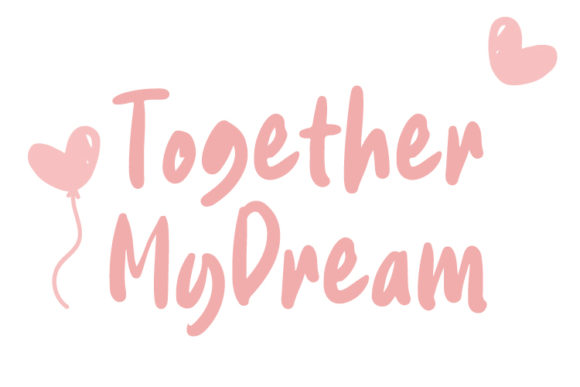
Introducing Daily Noted Font: The Ultimate Display Font for Creative Projects
Are you looking for a font that can elevate your creative projects to the next level? Look no further than Daily Noted Font, a fresh and relaxed display font that’s perfect for a wide range of applications. In this article, we’ll take a closer look at Daily Noted Font, its features, and how you can use it to enhance your designs.
What is Daily Noted Font?
Daily Noted Font is a modern display font that’s designed to add a touch of elegance and sophistication to your designs. It’s a versatile font that can be used for a variety of projects, including poster designs, book covers, merchandise, fashion campaigns, newsletters, advertising, magazines, greeting cards, album covers, and more.
One of the standout features of Daily Noted Font is its relaxed and fresh feel. It’s perfect for designers who want to create a laid-back, yet stylish look that’s sure to grab attention. Whether you’re designing for print or digital, Daily Noted Font is a great choice.
Key Features of Daily Noted Font
- Fresh and Relaxed Design: Daily Noted Font has a unique and modern design that’s perfect for creative projects.
- Versatile: This font can be used for a wide range of applications, from poster designs to digital marketing materials.
- Elegant and Sophisticated: Daily Noted Font adds a touch of elegance and sophistication to your designs.
- Easy to Read: This font is clear and easy to read, making it perfect for body text and headlines.
Uses of Daily Noted Font
Daily Noted Font is a versatile font that can be used for a wide range of projects. Here are some ideas to get you started:
- Poster Designs: Use Daily Noted Font to create eye-catching posters for events, promotions, or advertising campaigns.
- Book Covers: Add a touch of elegance to your book covers with Daily Noted Font.
- Merchandise: Use this font to create stylish and modern merchandise, such as t-shirts, mugs, and tote bags.
- Fashion Campaigns: Daily Noted Font is perfect for fashion campaigns, lookbooks, and editorial spreads.
- Newsletters: Use this font to create engaging and stylish newsletters that grab attention.
- Advertising: Daily Noted Font is a great choice for advertising materials, such as billboards, print ads, and digital banners.
- Magazines: Use this font to create stylish and modern magazine layouts.
- Greeting Cards: Add a touch of elegance to your greeting cards with Daily Noted Font.
- Album Covers: Use this font to create stylish and modern album covers.
Benefits of Using Daily Noted Font
There are many benefits to using Daily Noted Font for your creative projects. Here are a few:
- Unique and Modern Design: Daily Noted Font has a unique and modern design that’s sure to grab attention.
- Versatility: This font can be used for a wide range of applications, making it a great addition to your font library.
- Elegance and Sophistication: Daily Noted Font adds a touch of elegance and sophistication to your designs.
- Easy to Read: This font is clear and easy to read, making it perfect for body text and headlines.
- Experiment with Colors: Daily Noted Font looks great in a variety of colors, so don’t be afraid to experiment.
- Pair it with Other Fonts: You can pair Daily Noted Font with other fonts to create a unique and stylish look.
- Use it for Headlines and Body Text: This font is perfect for both headlines and body text.
Daily Noted Font is a fresh and relaxed display font that’s perfect for creative projects. With its unique and modern design, versatility, elegance, and sophistication, it’s a great addition to your font library. Whether you’re designing for print or digital, Daily Noted Font is a great choice. So why not give it a try and see how it can elevate your designs to the next level?
- What is Daily Noted Font?: Daily Noted Font is a fresh and relaxed display font.
- What can I use Daily Noted Font for?: You can use Daily Noted Font for a wide range of applications, including poster designs, book covers, merchandise, fashion campaigns, newsletters, advertising, magazines, greeting cards, album covers, and more.
- Is Daily Noted Font easy to read?: Yes, Daily Noted Font is clear and easy to read.
- Can I pair Daily Noted Font with other fonts?: Yes, you can pair Daily Noted Font with other fonts to create a unique and stylish look.